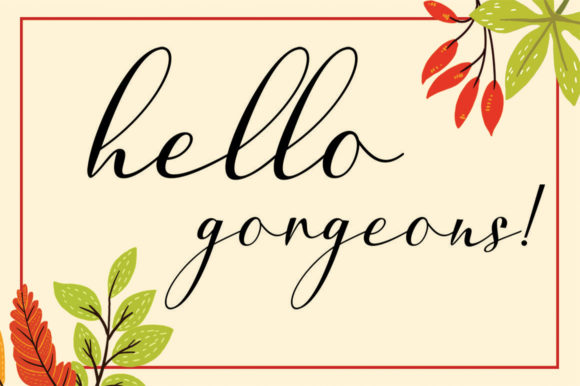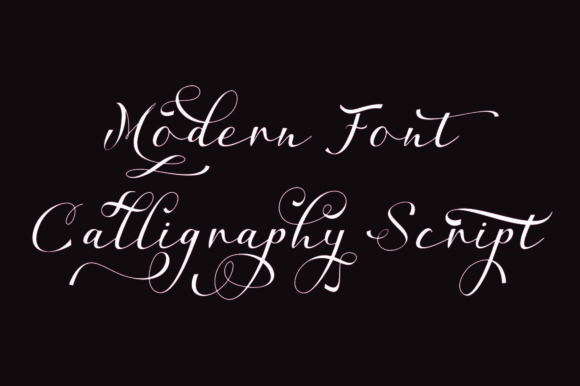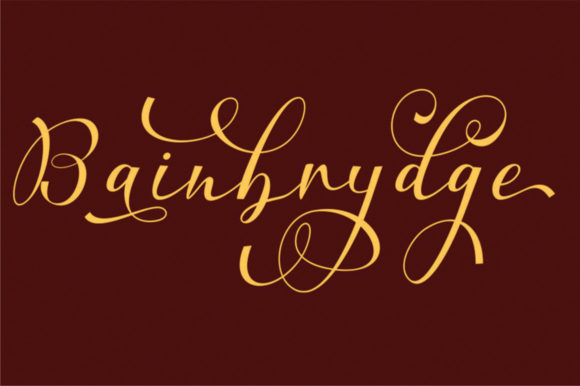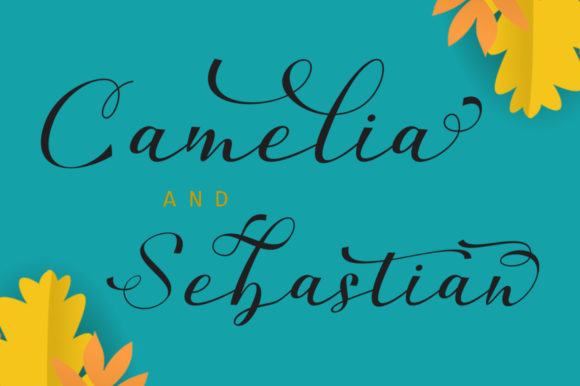
Cimberleigh Script Font
About Cimberleigh Script Font
Cimberleigh Script is an elegant script font with a contemporary atmosphere and impeccable form, inspired by timeless classic calligraphy. It is PUA encoded which means you can access all of the glyphs and swashes with ease!